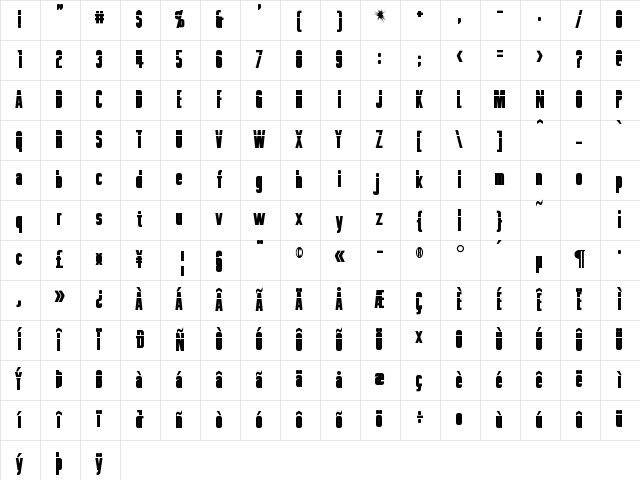
Phelps is a composed and adaptable typeface that performs quietly and consistently across a wide range of design contexts. Its bold stroke weight gives it real presence on the page.